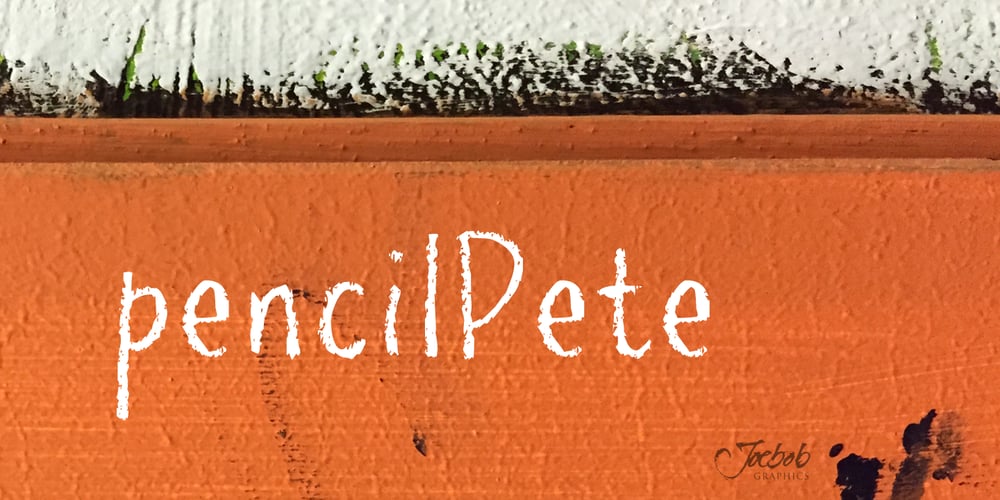
PencilPete
PencilPete font
PencilPete Font Family was designed by Jeroen “Joebob” van der Ham and published by JOEBOB graphics. PencilPete contains 1 styles and family package options. Just a straight and simple font with a character of its own: written with a HB pencil which is very recognizable in its appearance.